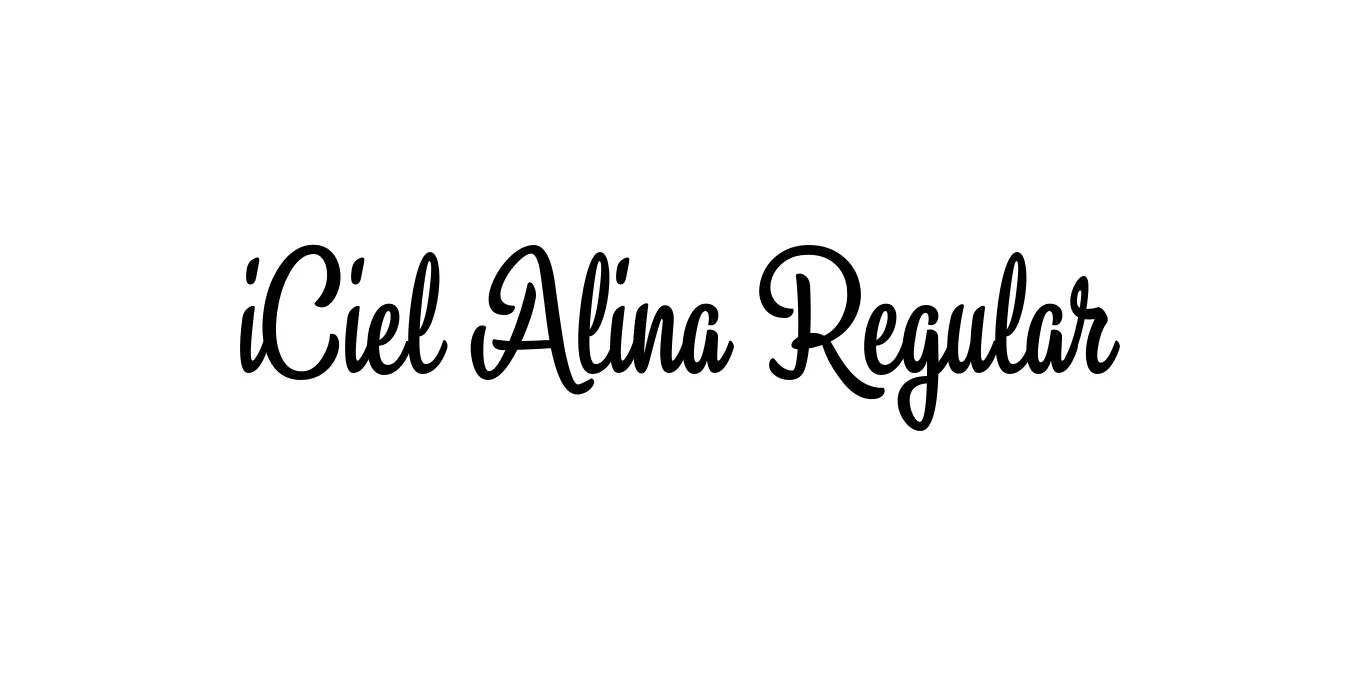
iCiel Alina Regular
Designed by iCiel
| Font Name | iCiel Alina |
| Designer | iCiel |
iCiel Alina Regular is a sophisticated brush script font that captures the fluid motion of hand-drawn calligraphy. Designed with a focus on elegance and modern aesthetics, it features sweeping curves and a natural rhythm that makes it ideal for projects requiring a personal touch. The iCiel version is specifically optimized with full Vietnamese character support, making it a popular choice for designers in Southeast Asia working on localized branding and editorial content.
This typeface stands out due to its versatile weight and clear legibility even at smaller sizes, which is often a challenge for script fonts. Alina bridges the gap between formal invitation styles and casual creative lettering, allowing it to function beautifully across digital and print mediums. Its popularity has grown significantly in the wedding industry and fashion branding, where its organic lines evoke a sense of high-end craftsmanship and authenticity.
iCiel Alina Regular Best Uses
Perfect for invitations, RSVP cards, and place settings.
Ideal for logos and packaging in the beauty and fashion industry.
Great for eye-catching quotes and Instagram story graphics.
Adds a sophisticated touch to magazine headers and pull quotes.